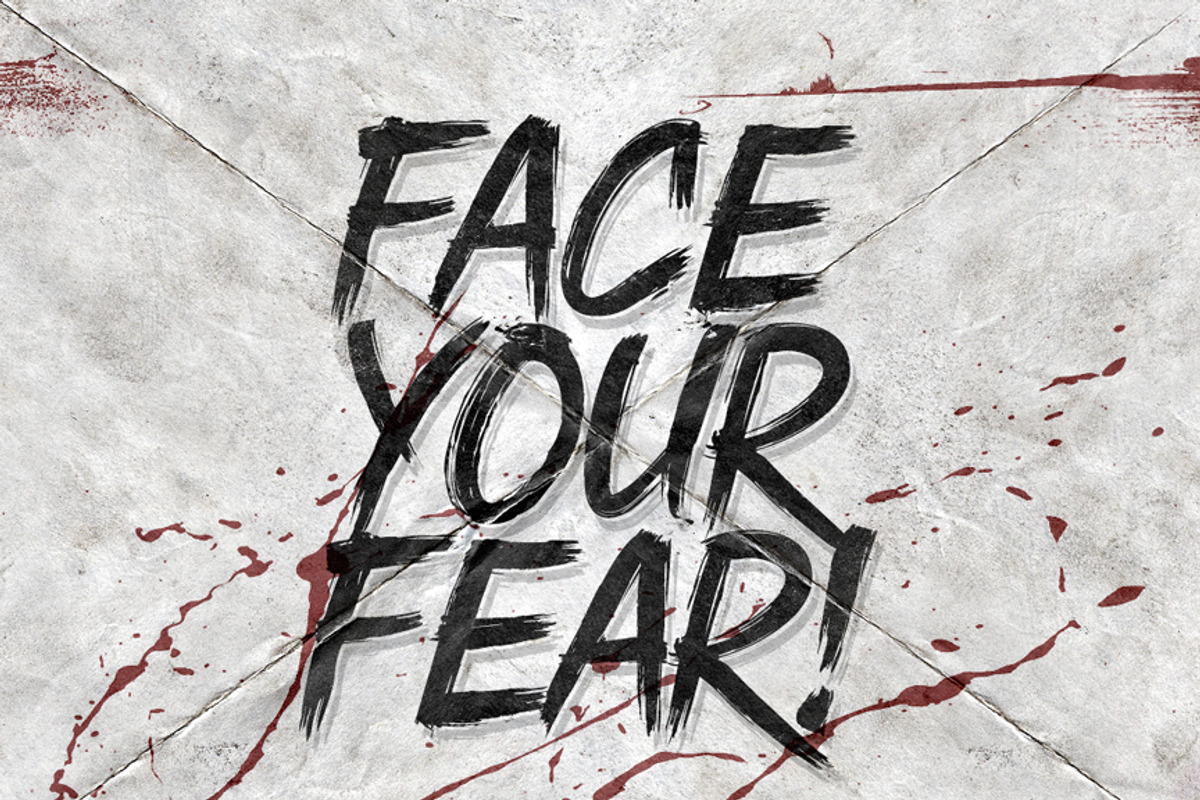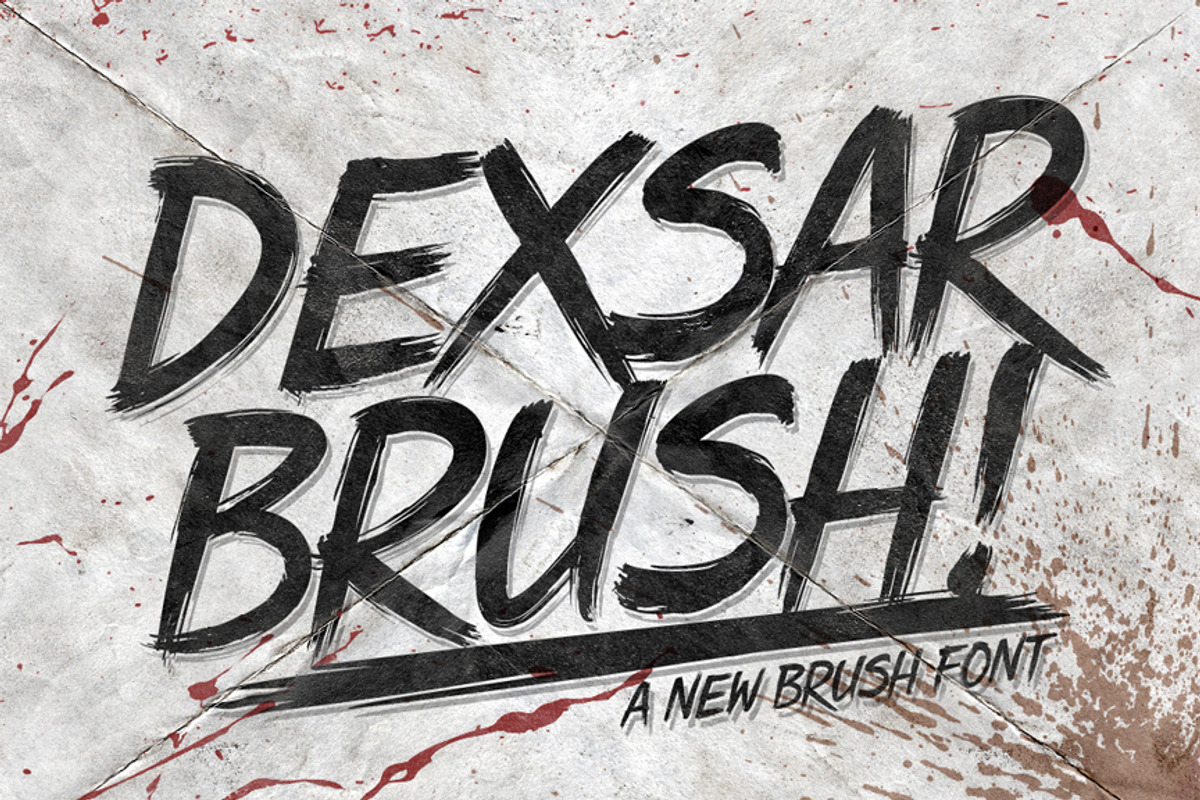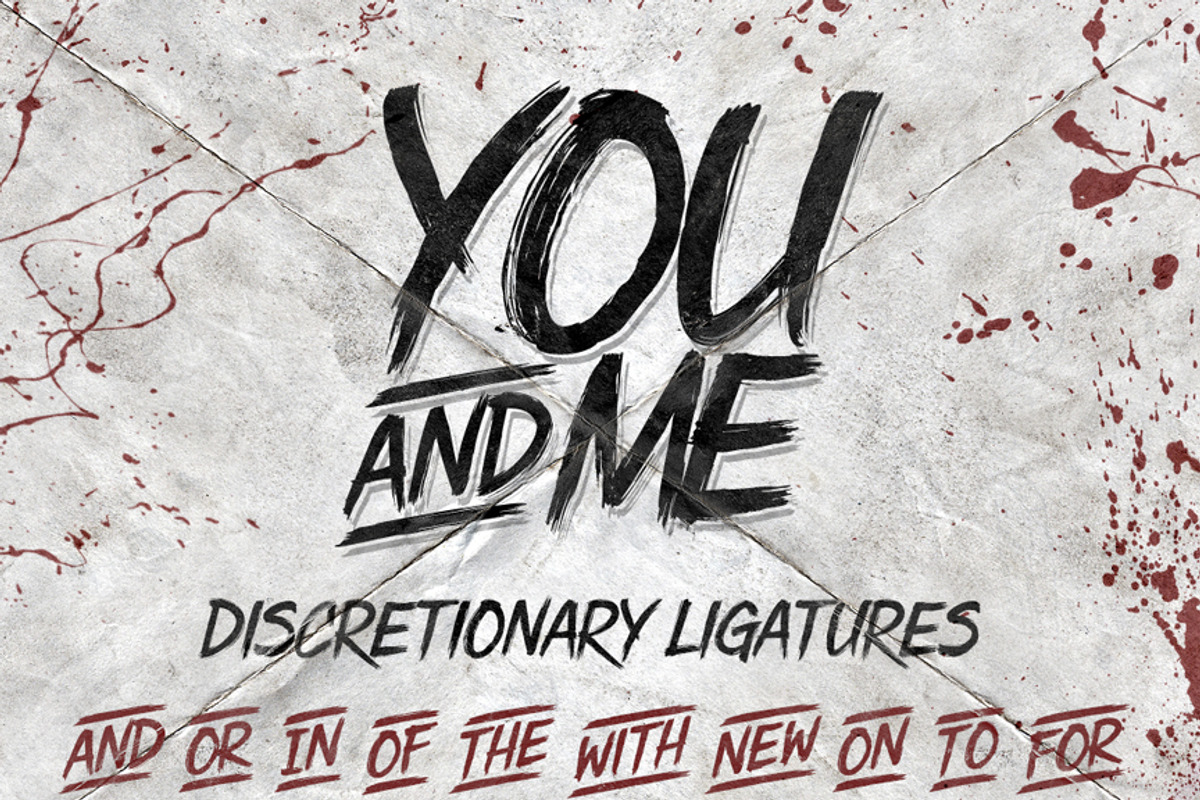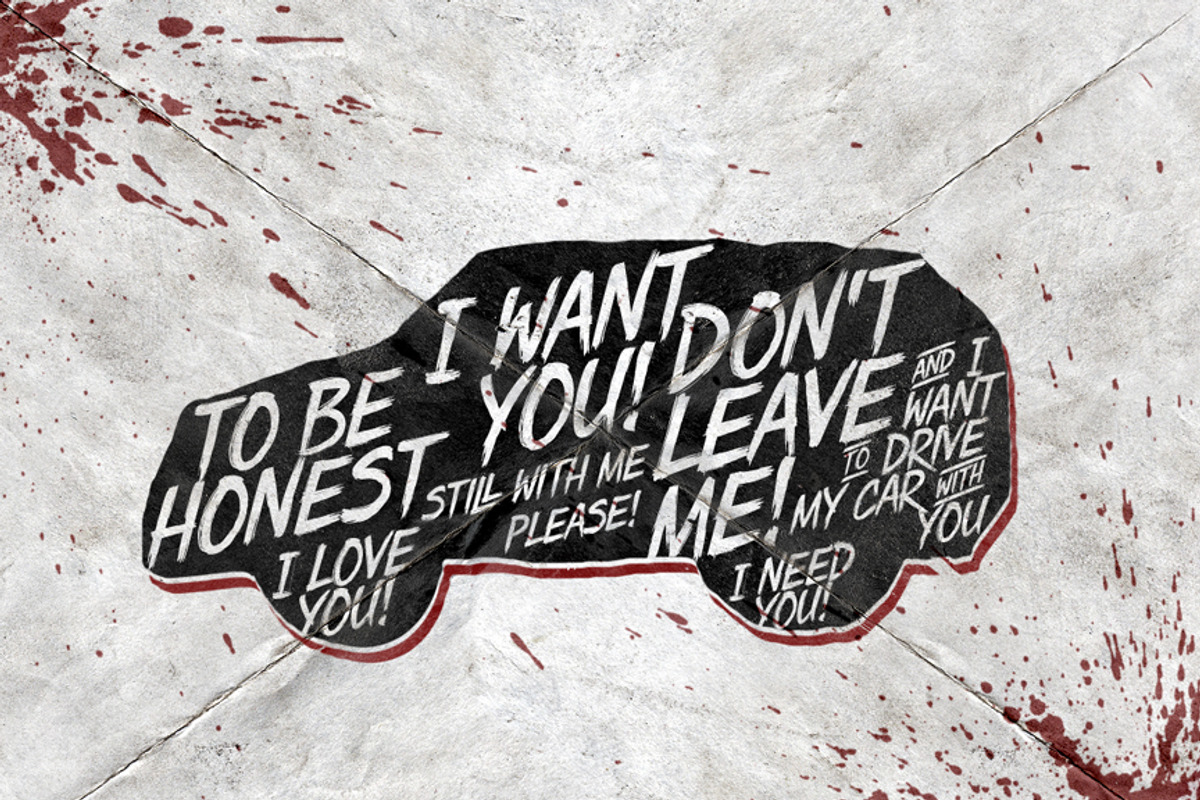
Dexsar Brush - Textured Brush Font
Dexsar Brush - Textured Brush Font by dexsarharryfonts is a font selected for branding, posters, packaging, typography.
Why Dexsar Brush - Textured Brush Font is worth a look
Dexsar Brush - Textured Brush Font by dexsarharryfonts fits naturally into Branding, posters, packaging, typography.